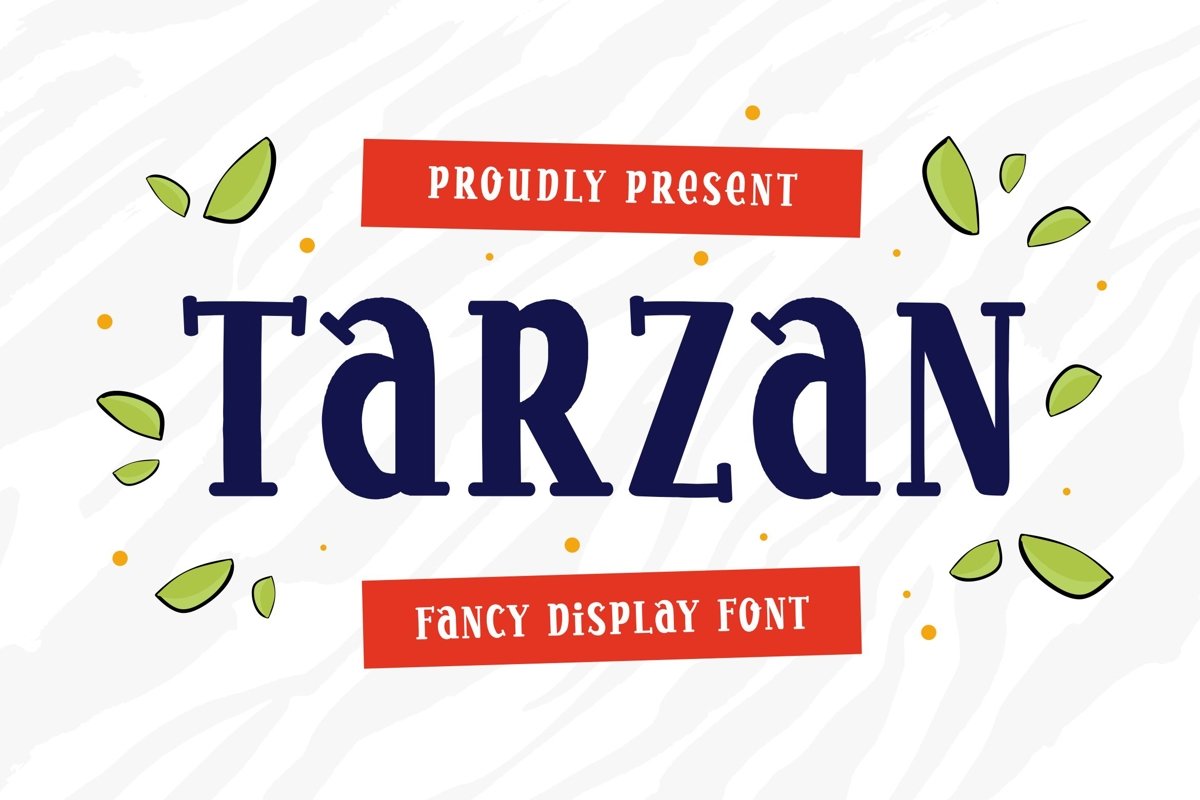
Tarzan - Display Font suitable for some designs such as the logotype, brand, packaging, quotes, music poster, t-shirt, cover book and more custom design. The features uppercase, lowercase, numeral, punctuation & symbol, multilingual support.
Tarzan